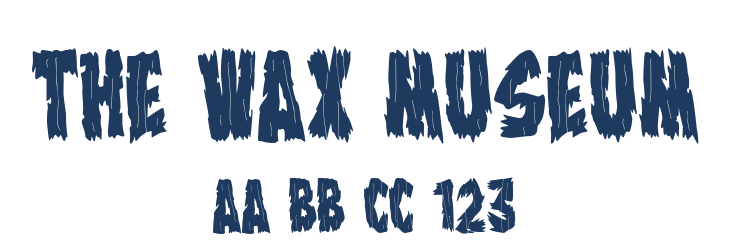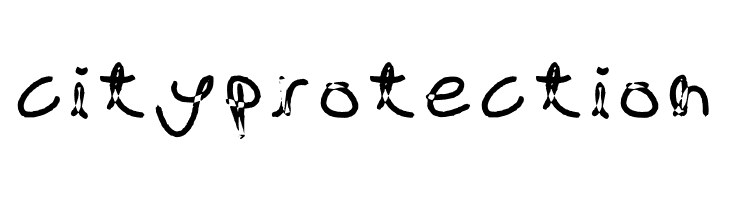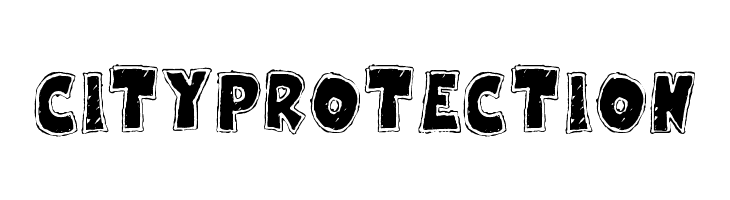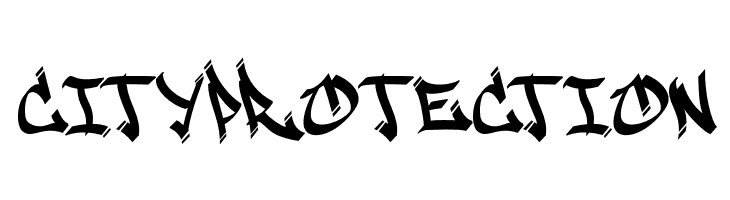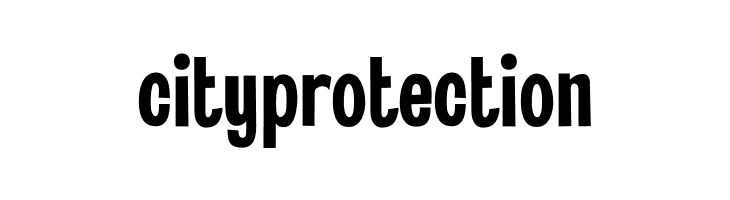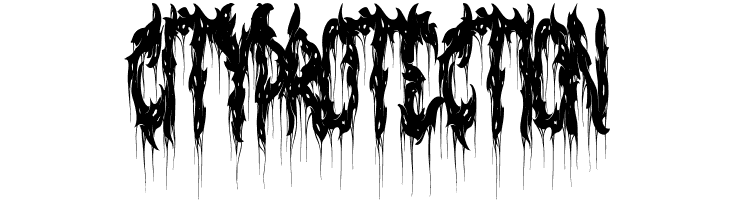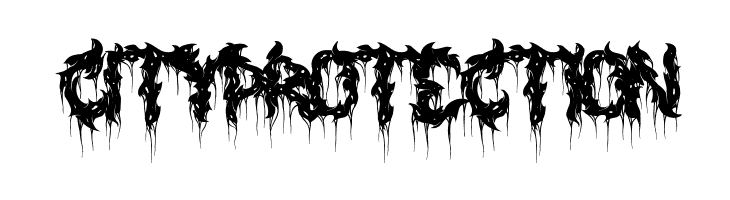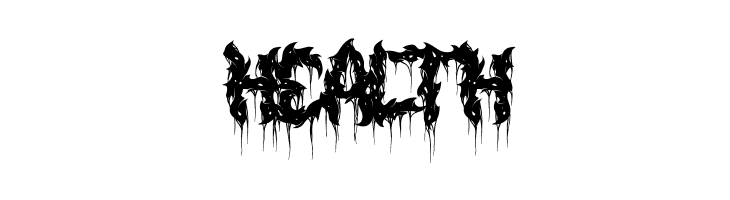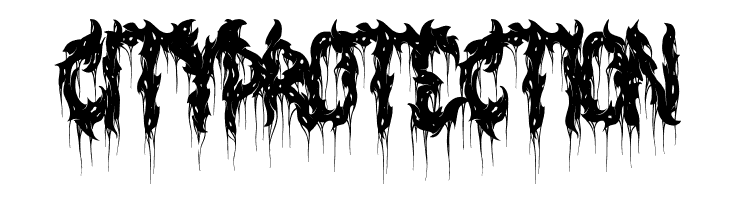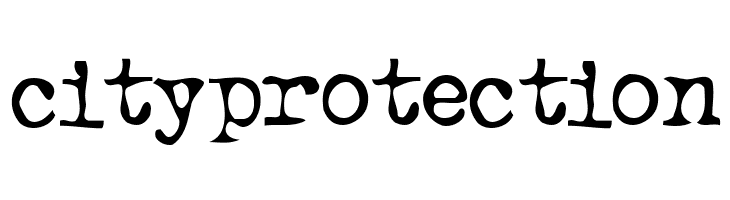
waxwork DEMO Font
A classic blackletter font with ornate, angular characters and decorative flourishes.
Screwy Melted Wax Font
A playful, melting wax-style font with bold, irregular shapes.
Wax - Regular Font
A distressed, hand-drawn font with a textured, brush-like appearance.
Waxtrax Medium Font
A highly decorative and abstract font with fragmented, distorted letterforms.
Wax Font
Matias Romero - matiasromero.deviantart.com
A bold, geometric font with a futuristic and angular design.
WaxworksTwo Font
A whimsical collection of hand-drawn character illustrations in circular frames.
Waxedtown GT Demo Font
A bold, graffiti-inspired font with sharp, angular strokes and dynamic energy.
Waxedtown GT Demo Font
A bold, graffiti-inspired font with sharp, angular lines and dynamic energy.
WaxworksImprovisations Font
Hand-drawn caricature font with unique illustrated faces for each character.
Trash Wax DEMO Font
Font by Trash Fonts
A bold, grunge-style font with irregular, dynamic strokes.
The Wax Museum Font
A bold, horror-themed display font with jagged, brush-like strokes.
Waxioze Font
Font by Dhabee Studio